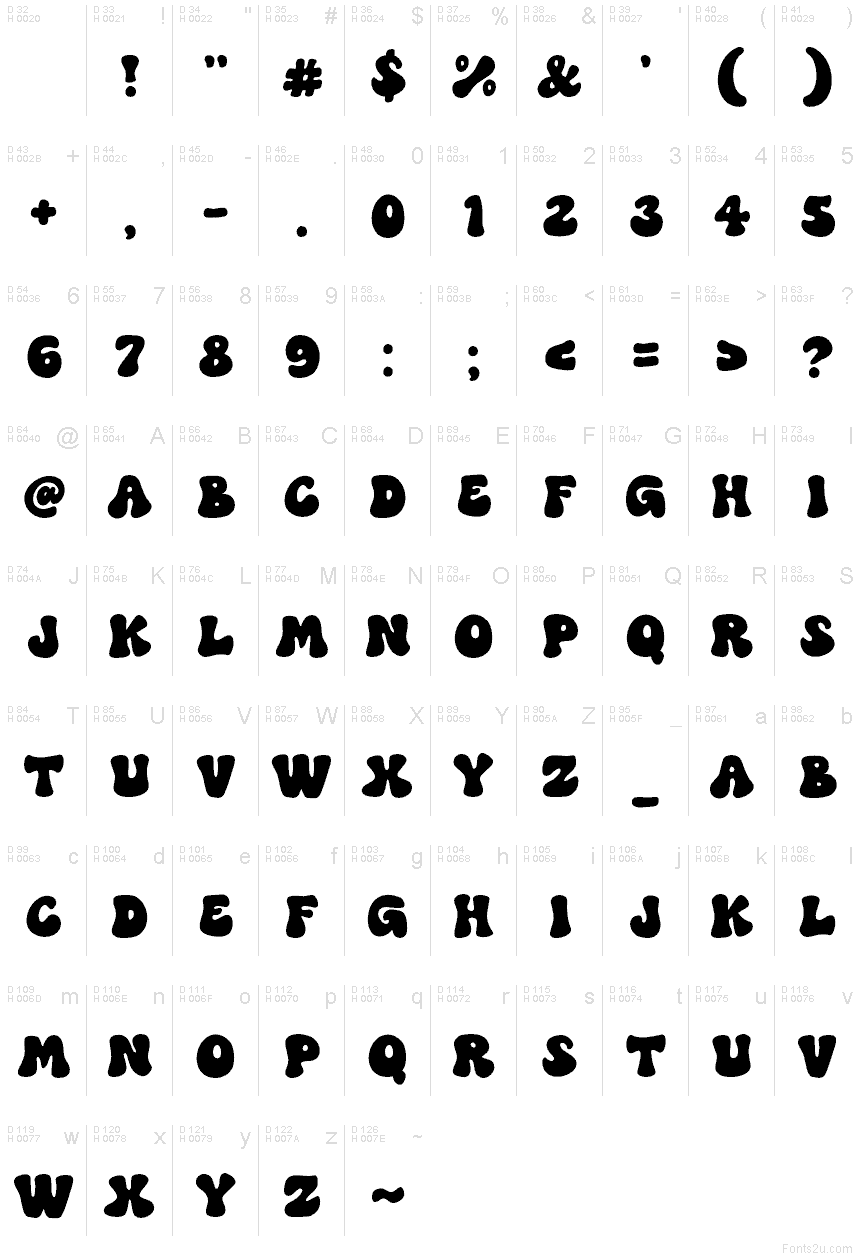
Groove Soul
Groove Soul font by MJType is a bold retro-inspired display typeface. It features smooth-flowing, curvy, and whimsical letters that when combined create a bubbly looking font. Ideas for applications of this free font are countless given its lovely essence and vibe which altogether makes up for an entertaining reading experience.
Use Groove Soul in designs such as posters, music albums covers, logos, packaging projects, and social media posts targeting the younger generation. The font is also great for product labels and trendy fashion branding while it can be used on magazine covers and digital advertisements too!